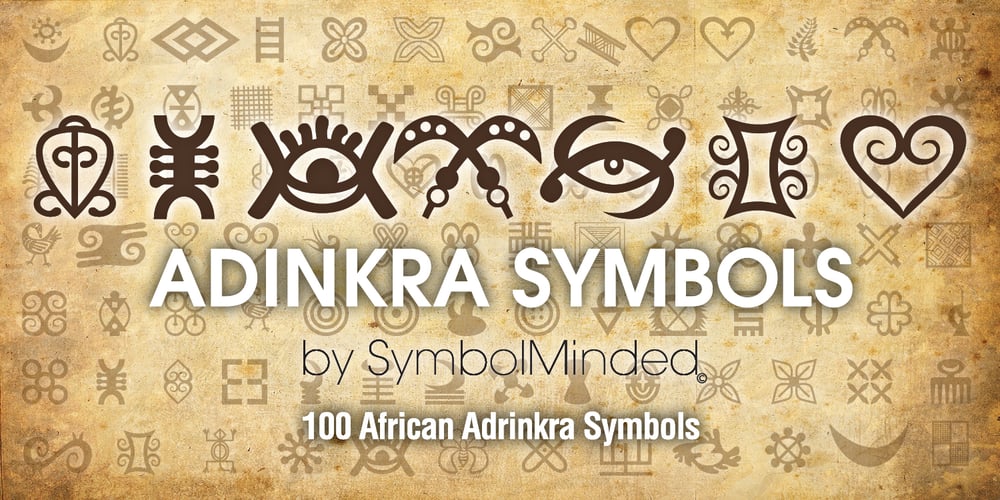
Adinkra Symbols Font Family was designed by Marie Flaherty and published by SymbolMinded. Adinkra Symbols contains 1 styles and family package options. The Adinkra name, by legend, comes from the King who was conquered by the Ashante people of Ghana. The king, Adinkra, wore wonderful patterned fabrics. Adinkra means “goodbye,” and the symbols were reserved for funeral garments. Today the symbols are part of the Ghana popular culture and around the world. You will find the symbols on everything from housing, clothing, to tattoos. These 100 symbols are accompanied by the Ghana name, a loose translation and what the symbol has come to represent. The meanings and symbols are by no means the complete list and some people do not use the exact same translations and meaning as you will find here. These are for casual use and not historical or anthropologically completely accurate.